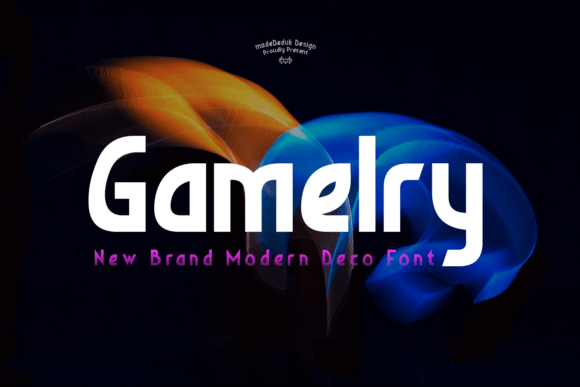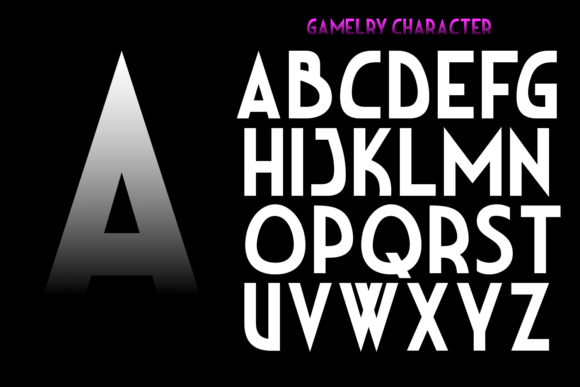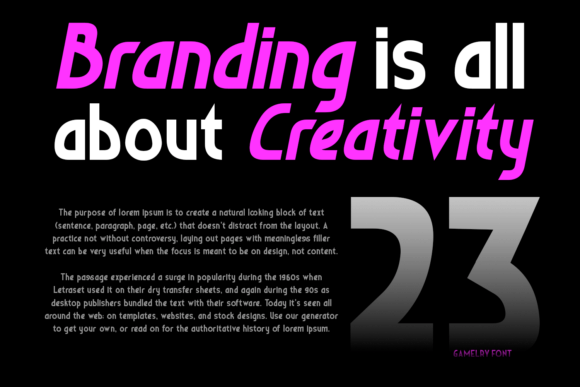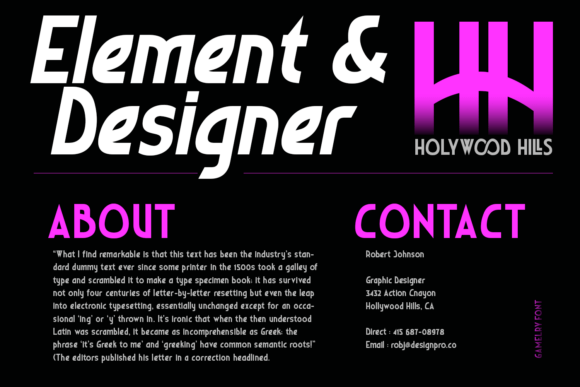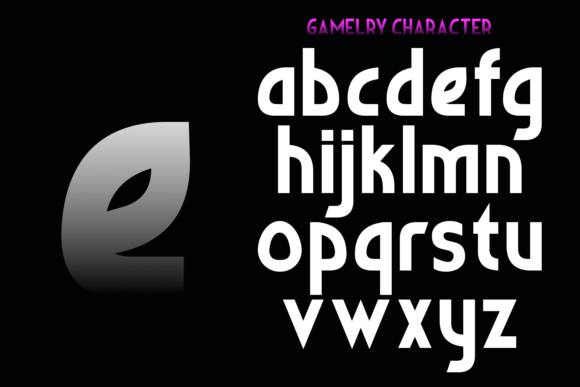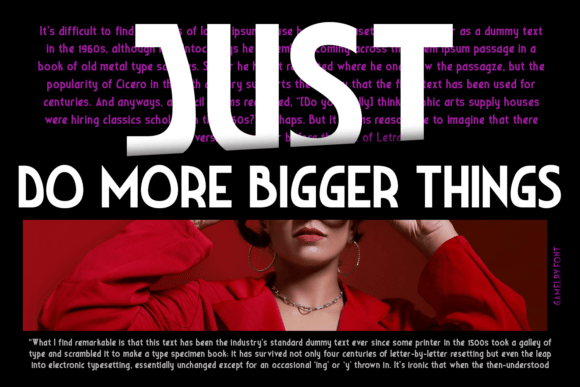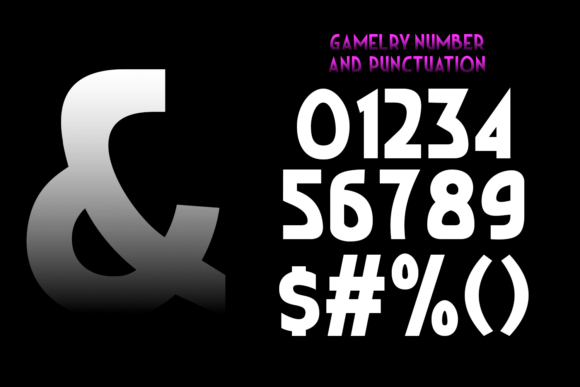
Unleashing the Timeless Charm of the Gamelry Font
Have you ever stumbled upon an old vintage poster in a dusty antique shop, only to be captivated by the elegance of its typography? For many creatives, this is the spark that sets off a chain of inspiration. It’s a moment that reminds us of the beauty of classic design and the power it has to transport us to another era.
Enter the Gamelry Font, a modern take on the art deco style that seamlessly blends vintage charm with modern sans techniques. This stylish, classic font is perfect for designers looking to add a touch of sophistication to their branding, product packaging, and other creative projects.
Whether you’re working on a high-end product label or a trendy fashion magazine, the Gamelry Font is an invaluable asset in your design toolkit. Its unique blend of old and new makes it an ideal choice for anyone looking to create a lasting impression with their design.
Gamelry Font Key Features
- Font Family: Gamelry Font is a sans-serif font family designed for gaming and entertainment purposes.
- Character Set: Supports a wide range of characters, including Latin, Cyrillic, and Greek alphabets, as well as various symbols and emojis.
- Font Size: Available in 4 different font sizes: 12pt, 14pt, 16pt, and 18pt, making it suitable for various gaming and entertainment applications.
- Resolution: Optimized for high-resolution displays, ensuring clear and crisp text rendering on modern devices.
- Unique Characteristics: Gamelry Font features a bold and futuristic design, with clean lines and geometric shapes, making it ideal for use in gaming menus, HUDs, and other interactive interfaces.
Gamelry Font Review
Overall, I’m really enjoying the Gamelry Font. It’s a solid addition to any project looking for a modern and playful touch. ✨ One of the things that stands out to me is the flexibility of the font – it works well in both body text and display settings, and it’s especially great for headings and titles.
Here are some of the things that I think really shine with the Gamelry Font:
- ✨ Clean and modern aesthetic
- ✨ Works well in a variety of settings, from body text to display headings
- ✨ Good contrast between thick and thin lines
- ✨ Supports a wide range of languages
However, I do have a few reservations about the Gamelry Font:
- ⚠️ Some of the characters can feel a bit too rounded and soft, which may not be ideal for projects that require a more sharp or technical look
- ⚠️ The font may not be suitable for very small text sizes, as the lines can become a bit fuzzy
Overall, I think the Gamelry Font is a great choice for projects that need a modern and playful feel. While it may have some limitations, it’s a solid and reliable option that’s worth considering.
The Gamelry Font is ideal for:
- Video game branding and marketing materials.
- Sci-fi and futuristic designs.
- High-tech and innovative projects.
The recommended font size for optimal readability with Gamelry Font is between 12-18 points, depending on the context and display resolution. This range allows for clear and legible text while also providing a visually appealing aesthetic.